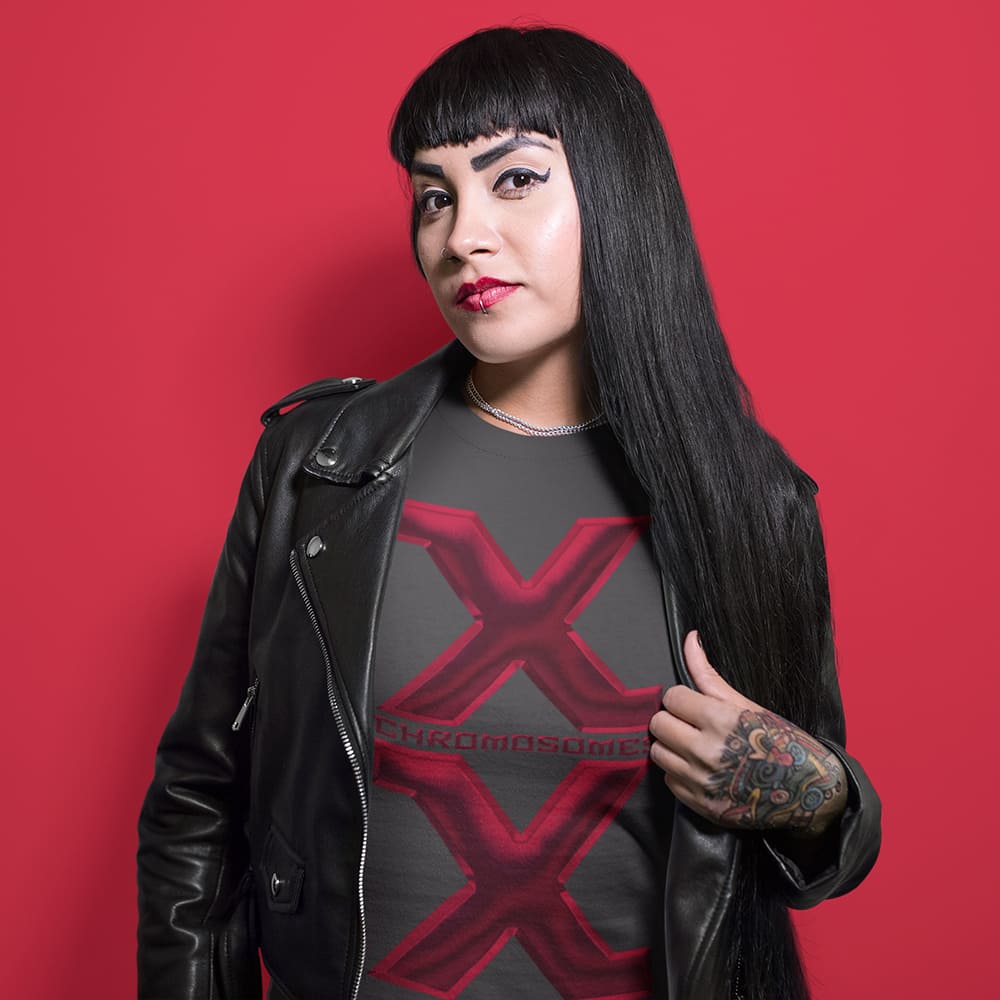
Chrome Font
Metallic, Powerful, Unstoppable ⚙️ ⚡ 🛠️
When light hits metal, something iconic is born. The Chrome Font is more than just a typeface – it’s a statement of pure steel and high-gloss finish. Inspired by muscle cars, heavy metal, and futuristic machines, this font delivers exactly what your design needs: shine, strength, and an indestructible style!
Why Choose the Chrome Font?
🔹 Polished look with 3D depth – This font looks like it’s been forged from pure chrome, with a reflective shine that demands attention.
🔹 Perfect for bold brands & designs – Whether for logos, automotive brands, gaming, merchandise, or posters, this font screams power & prestige.
🔹 Futuristic & timeless – Inspired by V8 engine chrome, legendary metal band logos, and the sleek aesthetic of sci-fi worlds, this font gives your design a brutal high-tech edge.
Turn Your Design into a Legend with the Chrome Font
Make your design shinier, stronger, and unforgettable! This font is for those who don’t just want to stand out – they want to dominate. And the best part? It’s available in multiple colors, giving you even more creative freedom!
🔹 Be bold. Be shiny. Be Chrome.
🔹 Choose metal. Choose strength. Choose the Chrome Font.